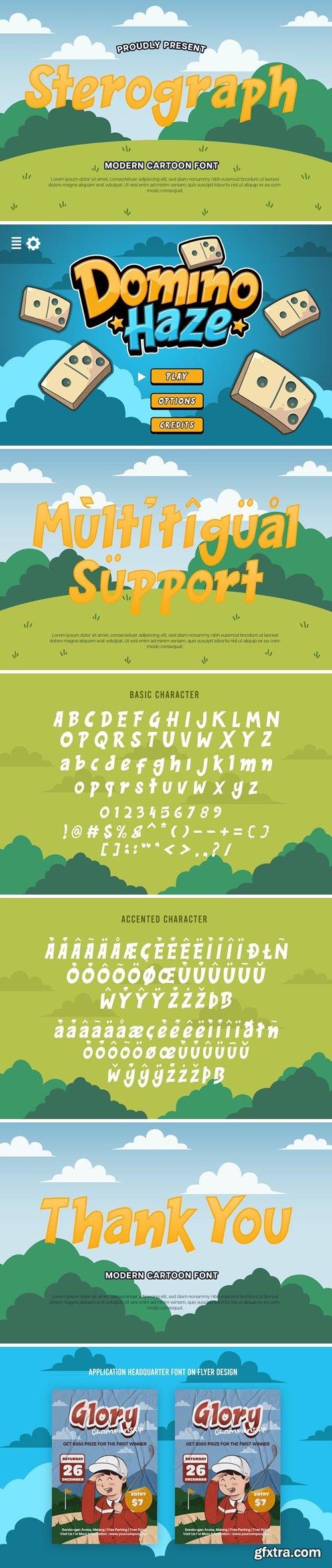
斯特罗格 - 夸张字体
Sterograph is fancy font with good style and cartoon style, these font includes: Uppercase and Lowercase characters Numbers and Punctuation Multilingual Support (Eastern, Central and Western European countries) OTF and TTF file format Works on PC or Mac Simply quick installation